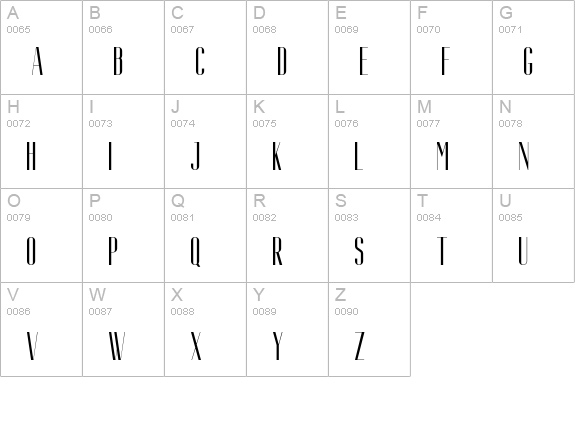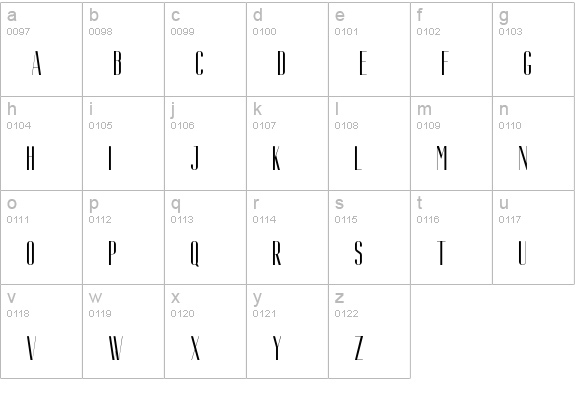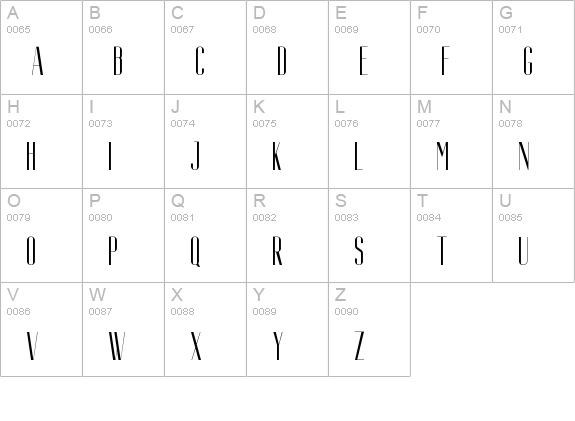
aguero sans is a demo font in the General > Sans-Serif category, designed by craftsupplyco. It has been downloaded 23 times and is available for Windows, Mac and Linux.
Aguero Sans is a modern and versatile font that combines sleek, clean lines with a touch of sophistication. Its elegant and minimalistic design makes it perfect for a wide range of projects, from branding and packaging to web design and advertising. With its wide range of weights and styles, Aguero Sans offers endless possibilities for creating eye-catching typography.